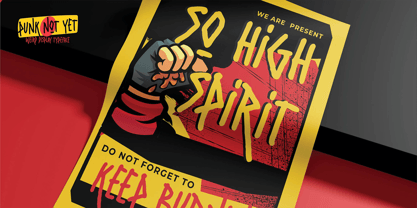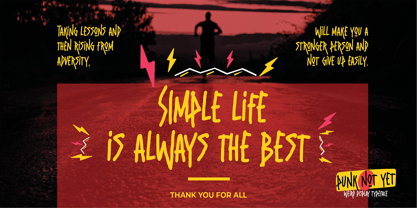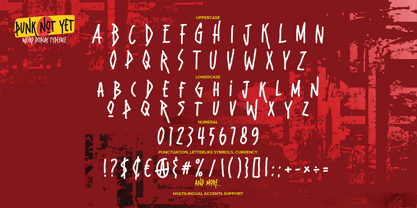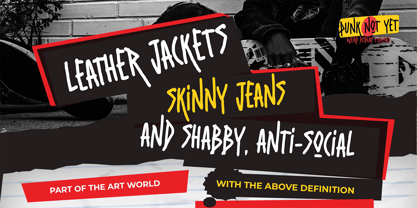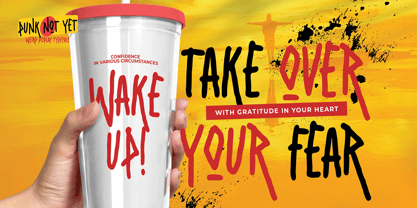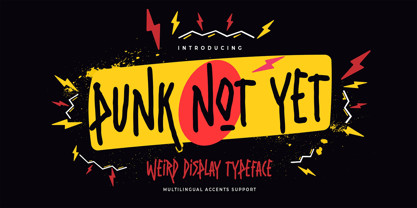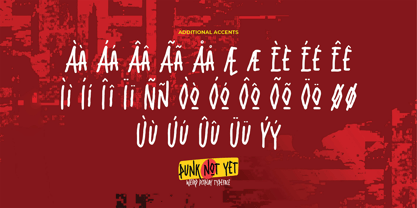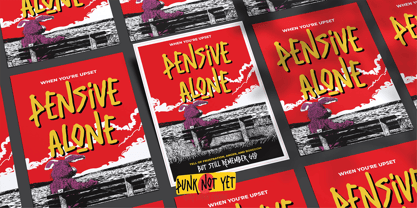
Punk Not Yet
by Almarkha Type
The Punk Not Yet Font Family was designed by Abdul Malik Wisnu and published by Almarkha Type. Punk Not Yet contains 1 styles. More about this family
Punk Not Yet is a chaotic, quirky, and unapologetically weird display typeface featuring bold strokes and unpredictable shapes. Designed with a raw, rebellious attitude, this font injects loud energy, messy charm, and a punch of visual noise into any layout. Its irregular letterforms, playful distortions, and hand-drawn punk aesthetic make Punk Not Yet ideal for designs that require edge, attitude, and a beautifully unpolished style. Loud, messy, and full of personality, this typeface celebrates imperfection in the best way possible.
Designers: Abdul Malik Wisnu
Foundry: Almarkha Type